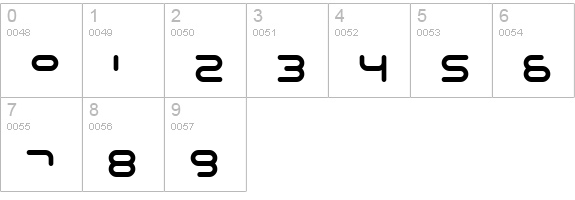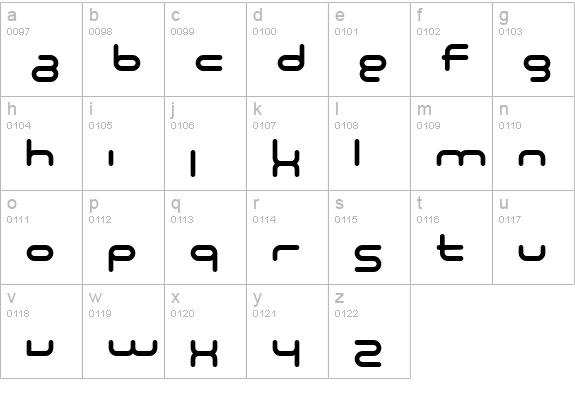
SF Technodelight NS Font Details
SF Technodelight NS is a cutting-edge and futuristic font that exudes a sense of technological marvel and innovation. This font is a perfect blend of sleek, clean lines and intricate details, making it an ideal choice for any project that requires a modern and forward-thinking aesthetic. Designed with a focus on legibility, SF Technodelight NS ensures that your message is conveyed effortlessly to your audience. Its unique and engaging letterforms create a captivating visual impact, making it an excellent choice for headlines, logos, posters, and any other medium that requires a bold and attention-grabbing typography. What makes SF Technodelight NS even more appealing is that it is available for free! Yes, you read that right. This font can be freely downloaded from FontsMarket.com, making it accessible to designers, artists, and enthusiasts alike. Embrace the freedom to explore and experiment with this remarkable typeface, and let your creativity soar to new heights. Whether you're working on a sci-fi movie poster, a tech startup logo, or a futuristic website design, SF Technodelight NS will undoubtedly elevate your project to the next level. Its versatility, combined with its modern and captivating design, ensures that your message will be conveyed with impact and style. So why wait? Get your hands on SF Technodelight NS today, and embark on a journey of technological delight. Download it for free at FontsMarket.com and unlock endless possibilities for your design projects.